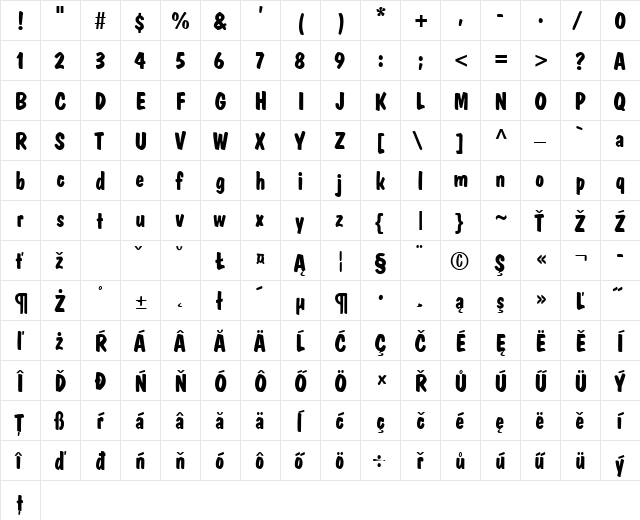
DawnCastle Bold
Design Context for DawnCastle Typeface
DawnCastle offers clean, dependable letterforms without strong stylistic allegiance, making it a practical choice for designers who need flexibility. Its bold stroke weight gives it real presence on the page.